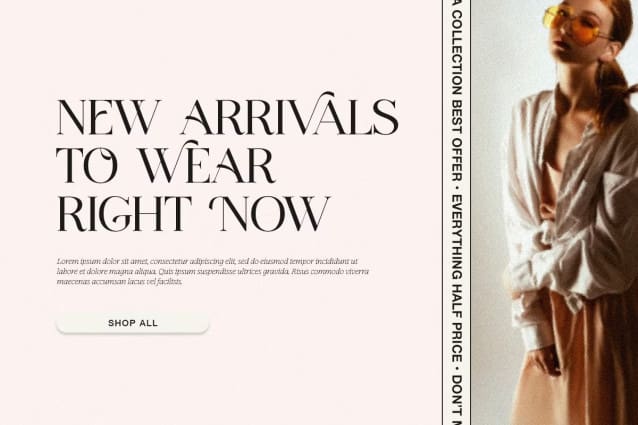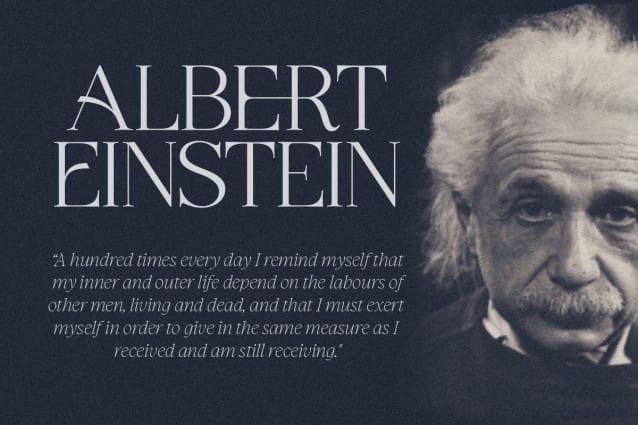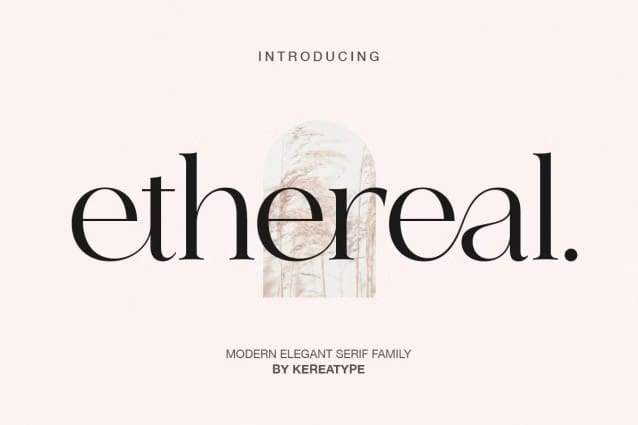
Ethereal Font Family
Ethereal Font Family by Kereatype, a Serif Family with 9 Weight is an elegant, modern and trendy serif font with some stylish charm. Ethereal by Kereatype is more than just a font; it is a statement of contemporary sophistication. Elevate your designs and projects with the subtle charm of Ethereal, where modernity meets elegance in perfect harmony.